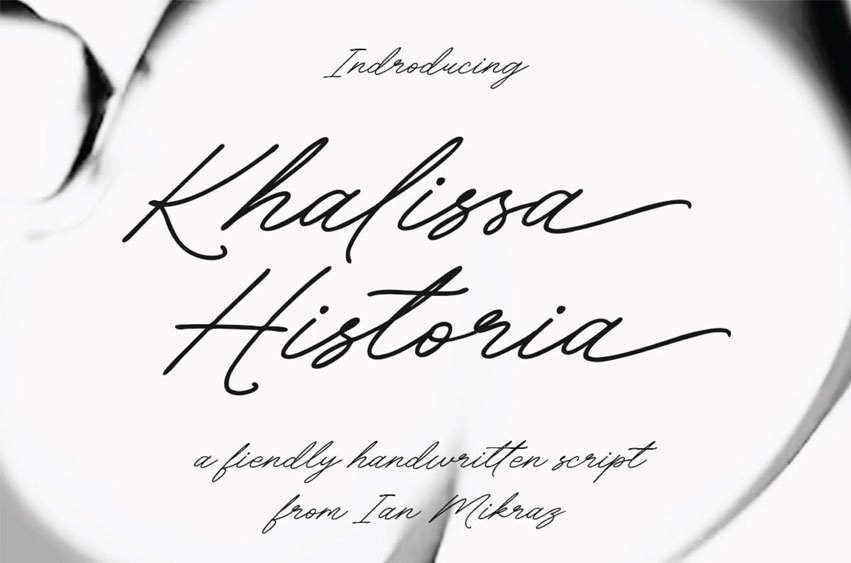
Khalissa Historia Font is a flowing and refined handwritten script font, crafted to bring elegance and charm to your creative projects. With its smooth curves and authentic signature feel, this typeface is perfect for adding a touch of personal sophistication to branding, social media graphics, wedding invites, or editorial quotes. Whether you’re crafting heartfelt messages or stylish logos, Khalissa Historia delivers beauty in every stroke.
This font includes uppercase and lowercase characters, numbers, punctuation, multilingual support, alternate swashes, and elegant ligatures. The versatile letterforms are balanced and legible, making it ideal for both display headlines and long-form handwritten notes. Designed with care, every curve and connection aims to mimic natural pen flow while maintaining high design quality.
Perfect for romantic wedding stationery, modern feminine branding, or inspirational typography, Khalissa Historia adapts gracefully to a wide range of design aesthetics. Make your message more personal, luxurious, and memorable with this signature-inspired script.
- Standart ligatures
- Swash